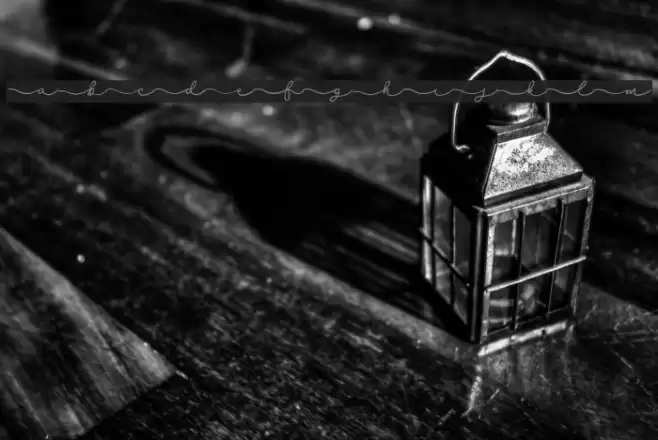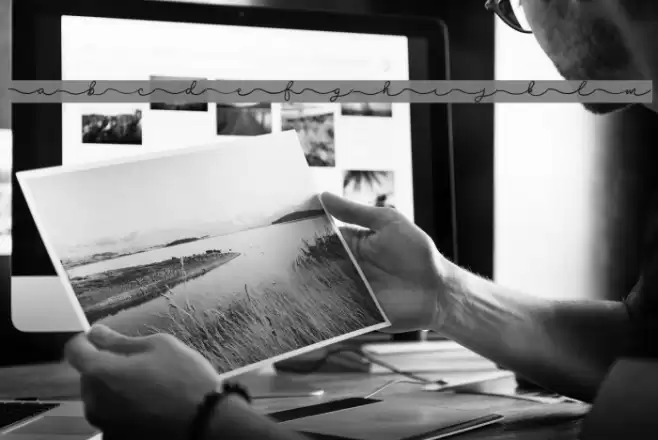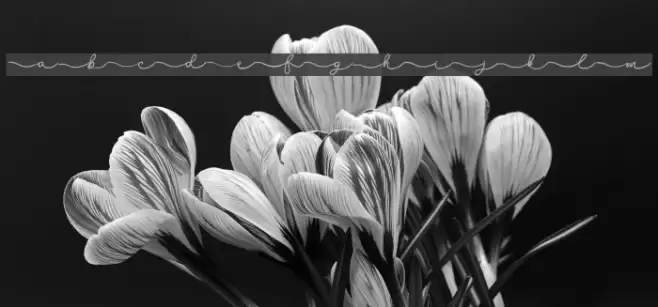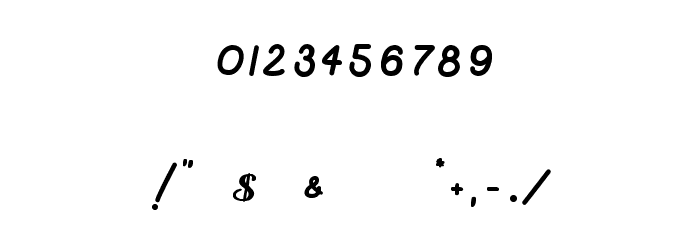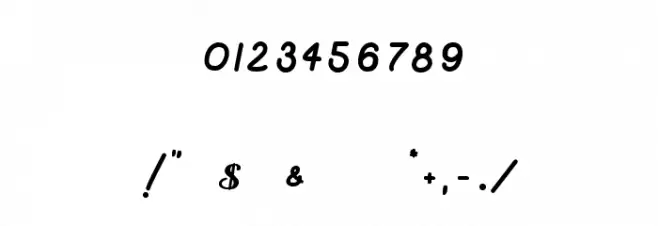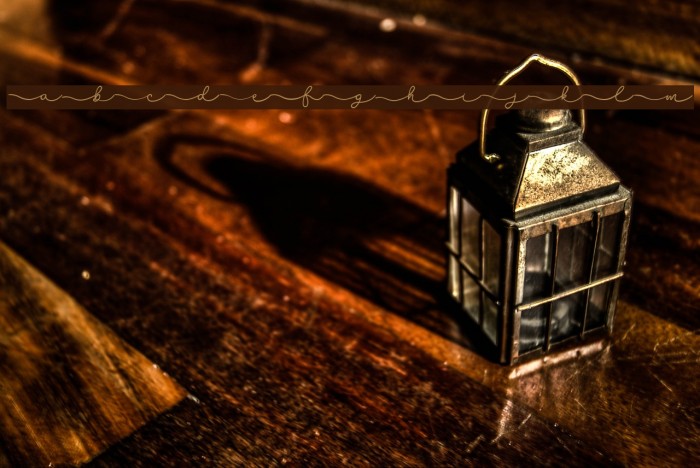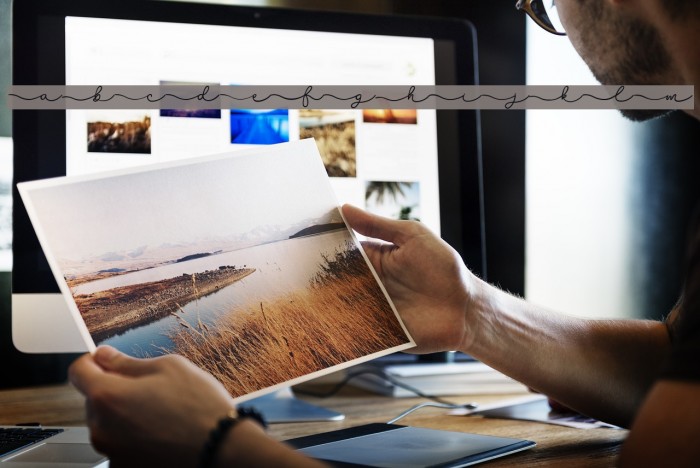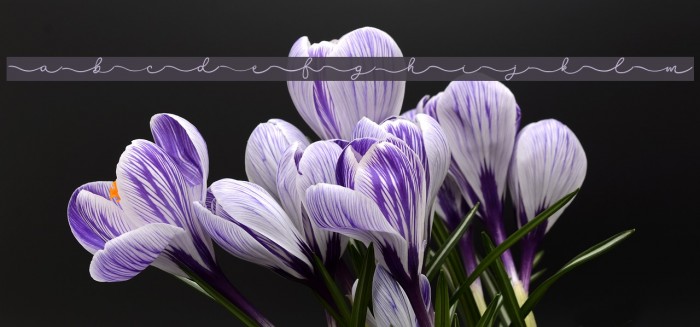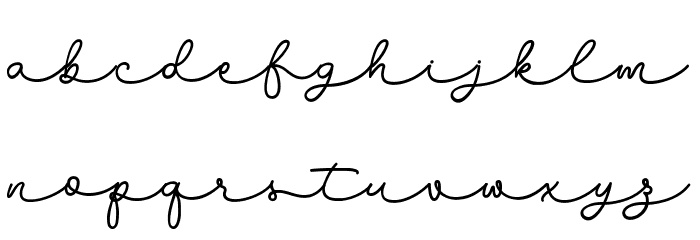
Sudsakorn - Personal Use Font
Sudsakorn - Personal Use Description
This font features a charming and elegant handwritten style, characterized by its fluid and continuous strokes. The uppercase letters are bold and slightly rounded, providing a strong yet approachable appearance. In contrast, the lowercase letters exhibit a more delicate and flowing script, with graceful loops and curves that enhance its handwritten aesthetic. The numerals are clear and consistent, maintaining the overall style of the font. Special characters are thoughtfully designed, complementing the alphabet with a cohesive look. This font's unique blend of boldness and elegance makes it versatile for various design projects.
A charming handwritten font with fluid strokes and elegant curves from Uncategorized fonts.
- Proposed Projects: Ideal for wedding invitations, greeting cards, personal branding, and elegant packaging designs.
- Overall Style: Elegant
- Use Case: Logos, Invitations, Personal Branding